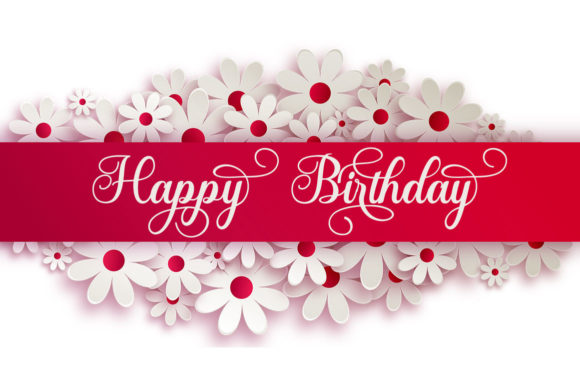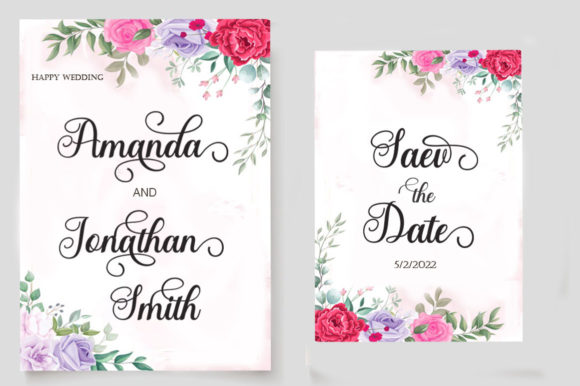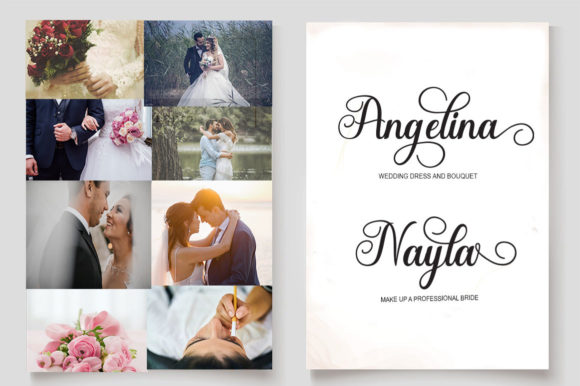
Introduction to Manhattan Font
Do you remember that moment when you stumbled upon the perfect font for your design project? The one that elevates your entire concept and leaves a lasting impression on your audience? For me, that moment came when I discovered the Manhattan Font. Its elegant, hand-drawn feel instantly caught my attention, and I knew I had to dive deeper.
As a designer, you’re always on the lookout for that special something that sets your work apart from the rest. The Manhattan Font is that something. Its romantic and sweet calligraphy style is perfect for adding a touch of luxury to any design project. Whether you’re working on a wedding invitation, a branding campaign, or a creative blog post, this font is sure to bring a high quality feel to your work.
Key Features of Manhattan Font
Honest Review: Manhattan Font
I recently had the chance to work with the Manhattan Font, and I must say it’s been a game-changer for my creative projects. ✨
Here are some of the things that work well with the Manhattan Font:
- Its modern and sleek design makes it perfect for contemporary creative projects.
- The font is highly customizable, allowing me to tweak the style to fit my project’s requirements.
- The transparent background makes it easy to use in various design applications.
- The font may not be suitable for projects that require a more traditional or classic look.
- Some users may find the font’s bold style overpowering in certain contexts.
Overall, I’m impressed with the Manhattan Font. It’s a solid addition to any designer’s toolkit, and I’ll definitely be using it for future projects.